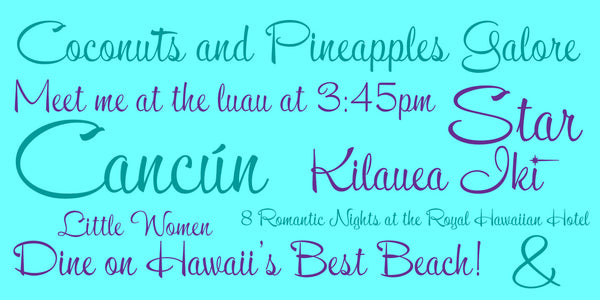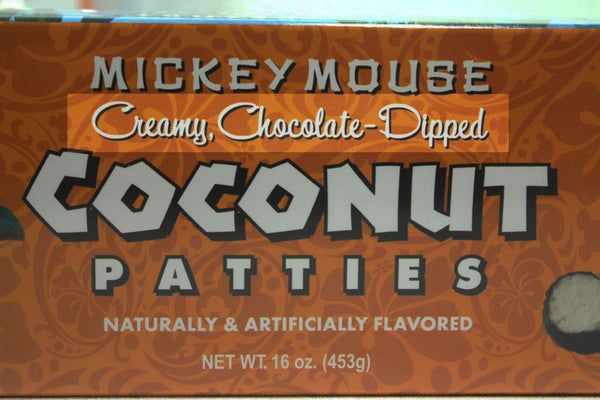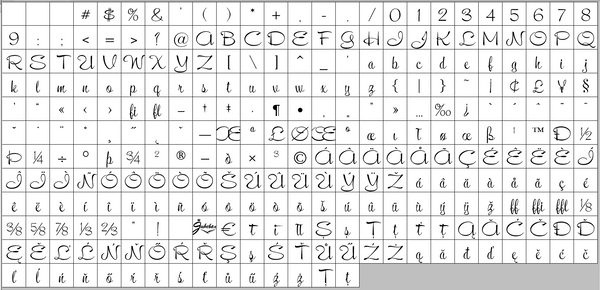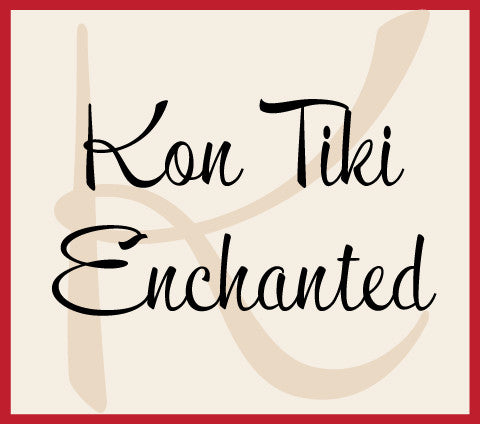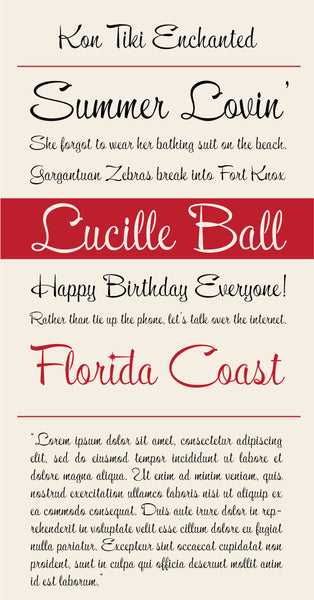
Kon Tiki Enchanted
Kon Tiki Enchanted is a beautiful flowing script font with a retro feel. Part of a series of Kon Tiki fonts created to celebrate the design style of mid 20th Century Hawaiian kitch, Kon Tiki Enchanted is spunky and feminine and adds worlds of charm to any design. This has been one of my most popular fonts!
Notable Use: Disney theme parks use Kon Tiki Enchanted on the packaging for their Resort Delights, Coconut Patties.